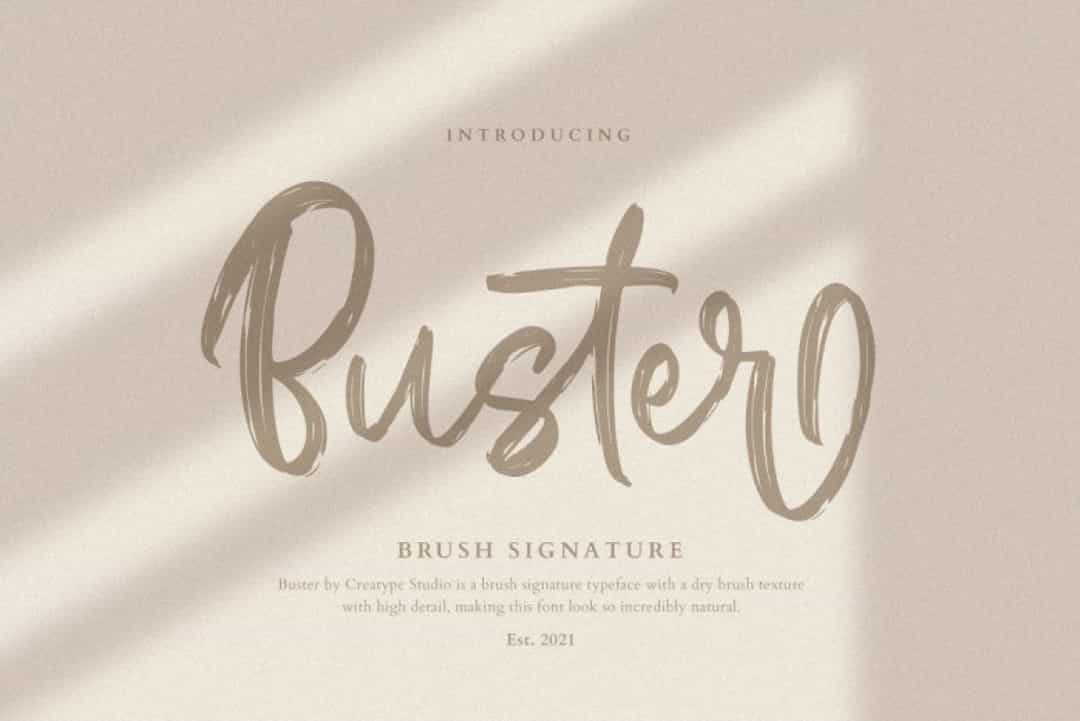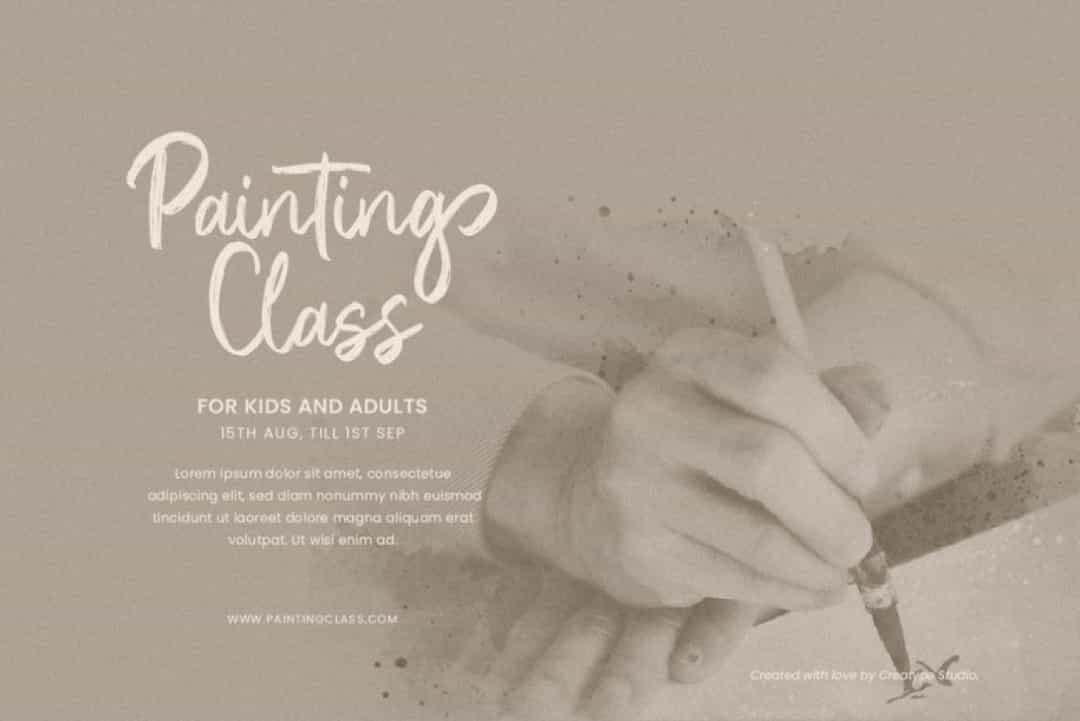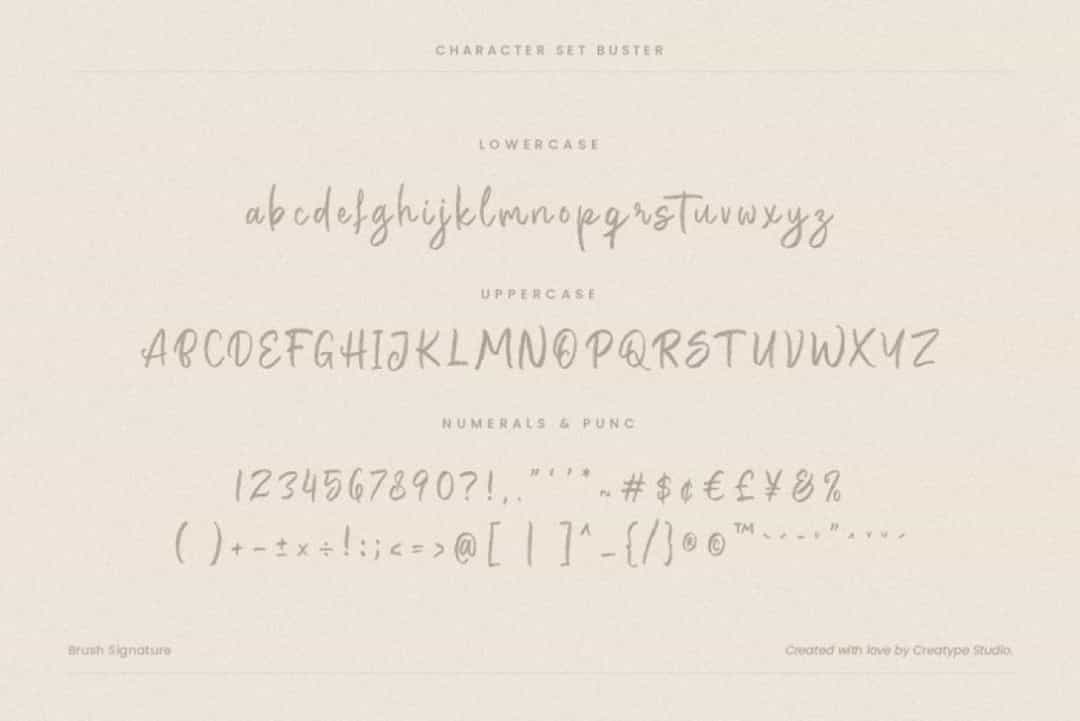
Buster Brush Font is a signature script typeface with dry brush texture and high detail, creating an almost naturalistic appearance when used together with either serif or sans serif typefaces.